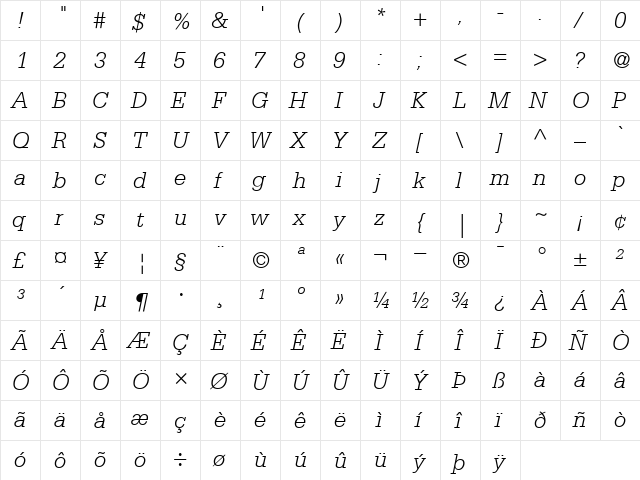
Serifa46-Light LightItalic
Design Context for Serifa46-Light Typeface
Serifa46-Light brings classic typographic sensibility to the table — its serifs and measured letterforms reflect centuries of print heritage. The slanted form adds forward momentum and visual energy. The delicate stroke weight brings airiness and refinement to layouts.
Pro Tip: Set Serifa46-Light at slightly larger body copy sizes than you would a regular-weight serif to compensate for its delicate stroke contrast.